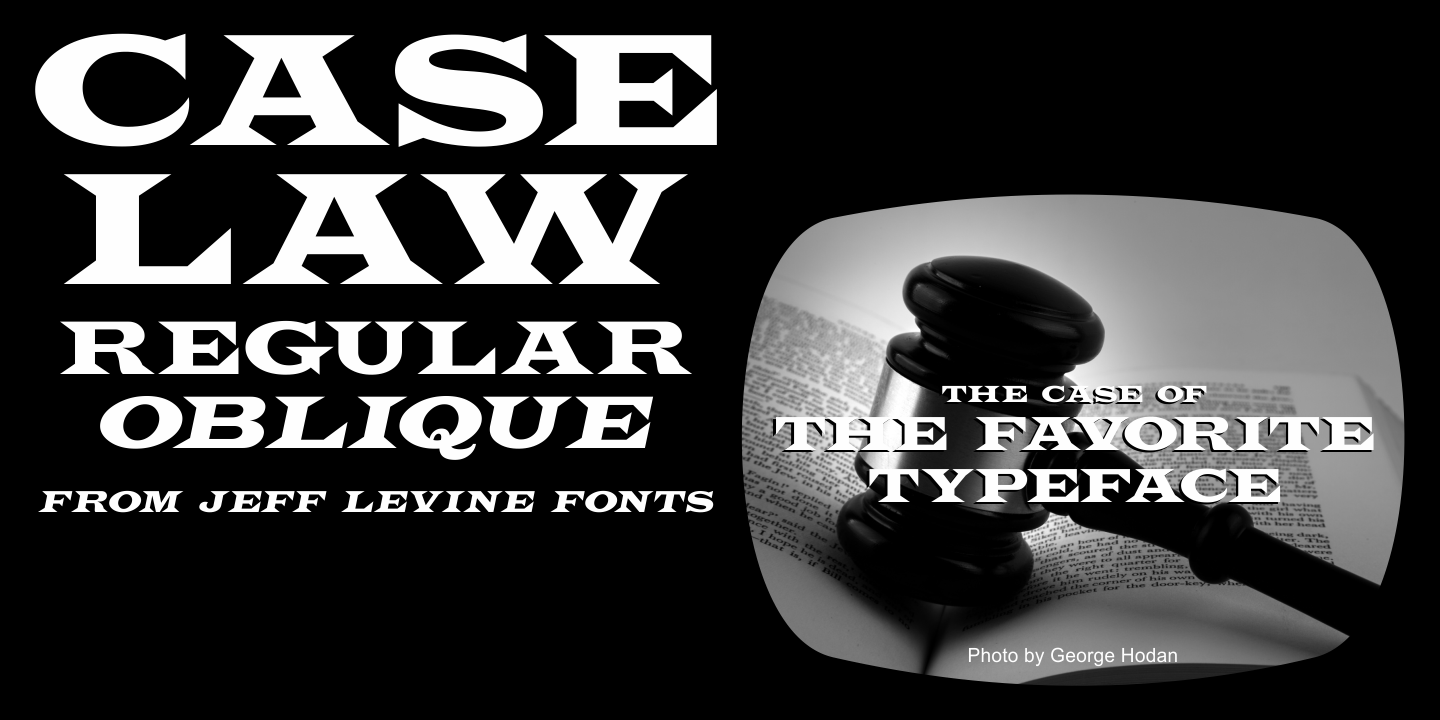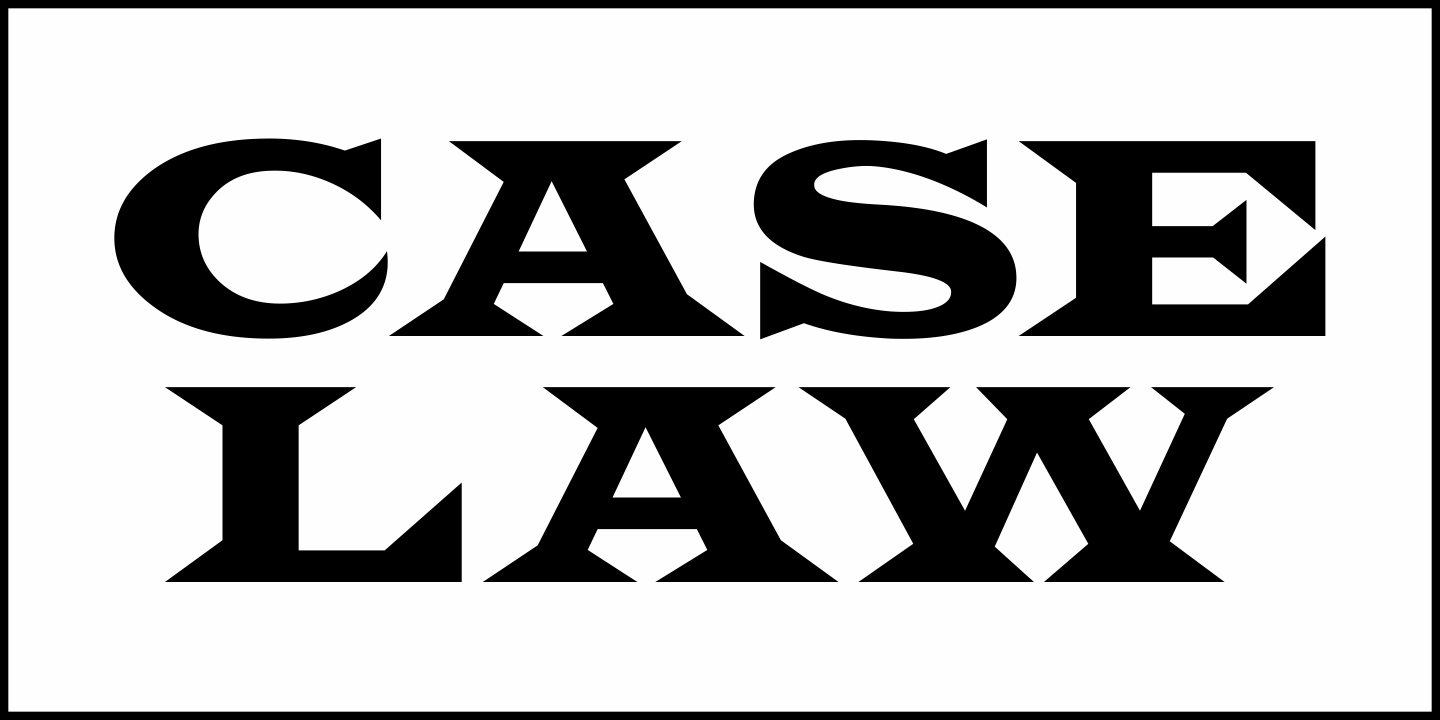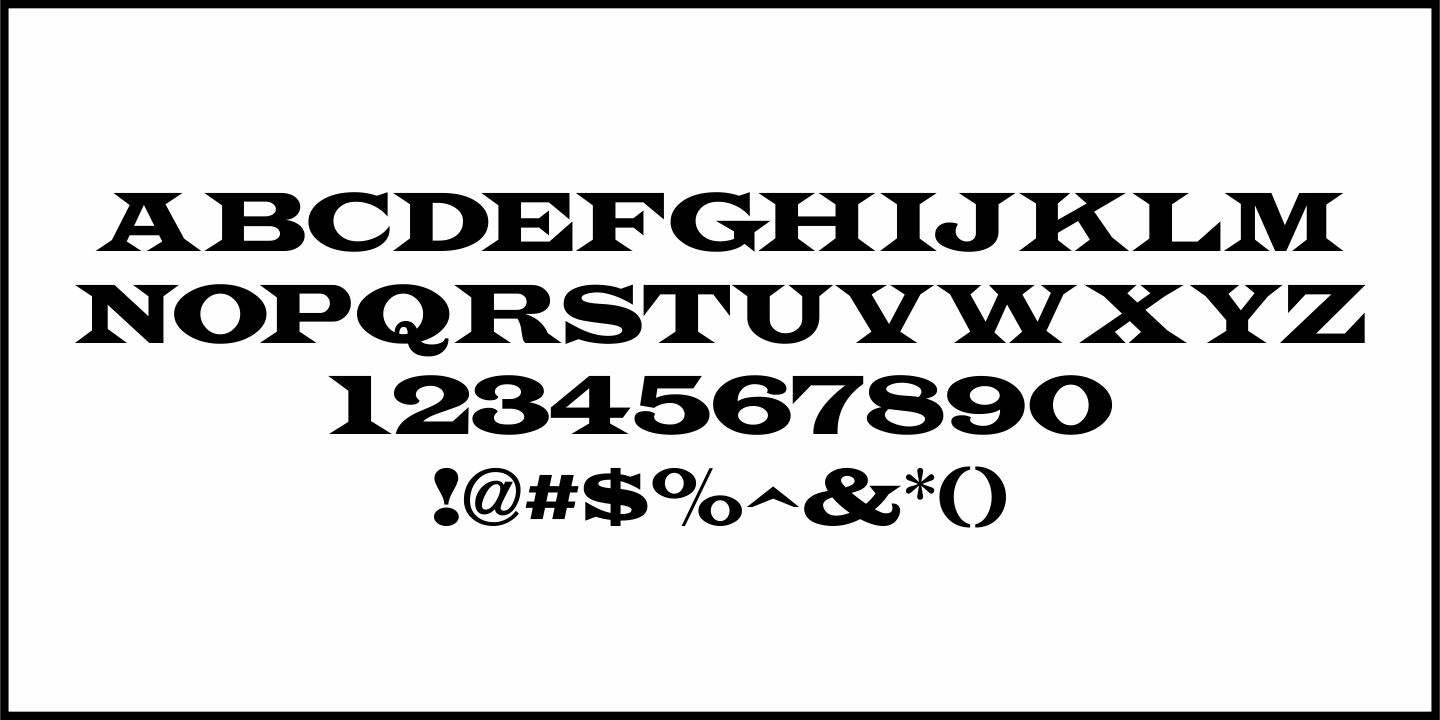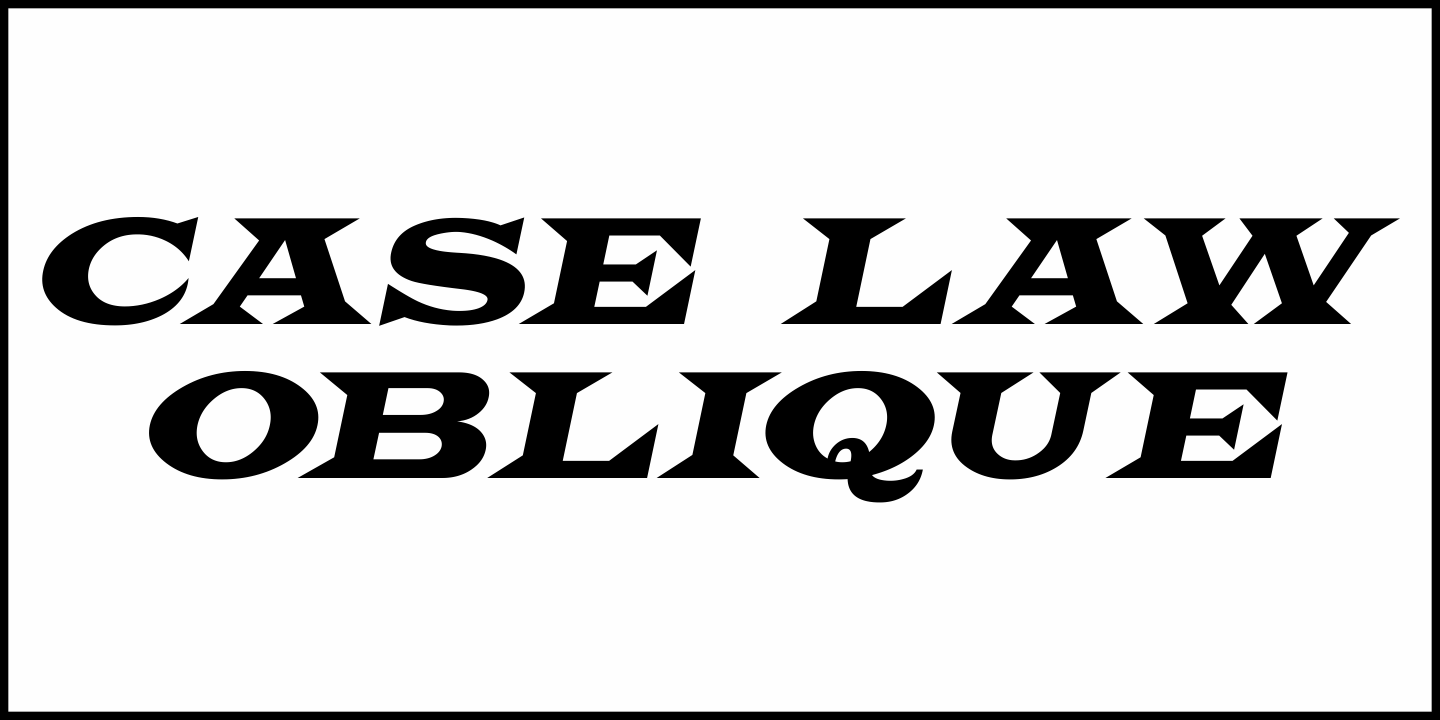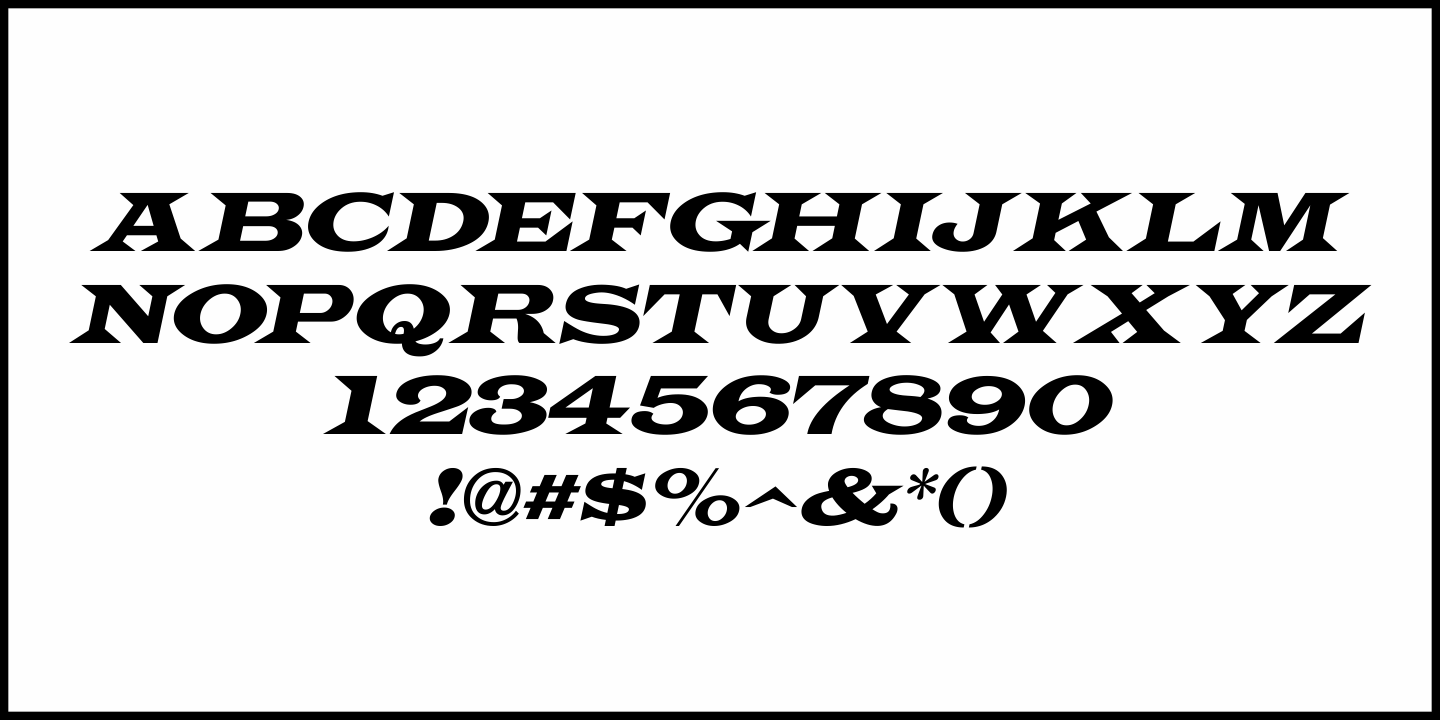
Case Law
Since 1883, Stephenson Blake's Wide Latin has been an ever-popular typeface. It's largest exposure is likely during the run of the classic legal drama Perry Mason, in which the design was used for the opening and closing title sequences.
This digital version is called Case Law JNL (as a bit of an homage to the TV series) and is available in both regular and oblique versions.